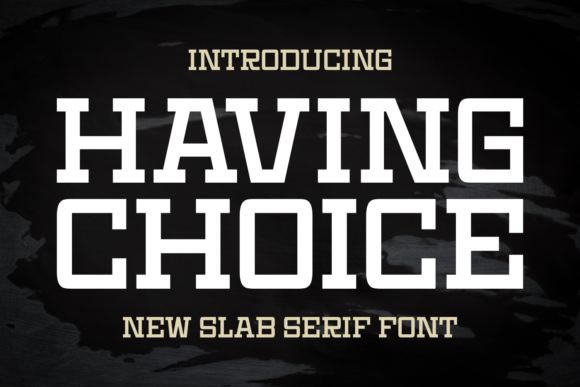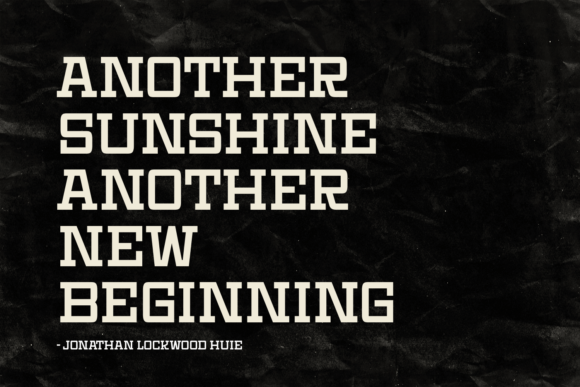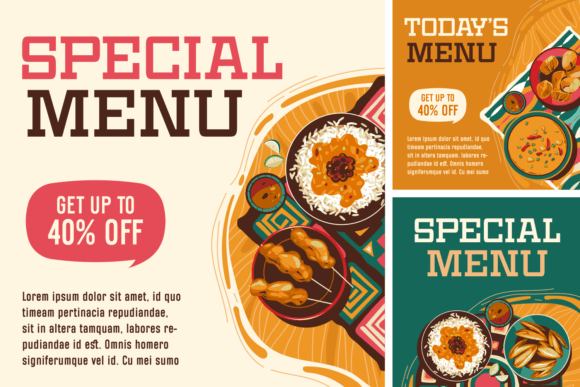
About Having Choice Font
Having Choice is a sharp, elegant slab serif typeface. Its unique glyphs construction renders it a valid choice when it comes to designing a serious project which requires a delicate touch, clean look, and elegant note. Use it in your Packaging design, perfume design, or fashion design presentation, and you will notice how much powerful it ports inside every glyph.